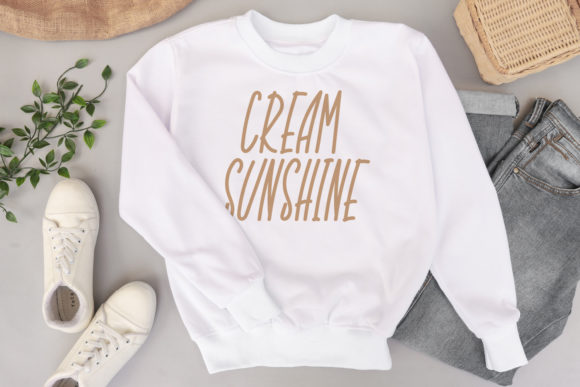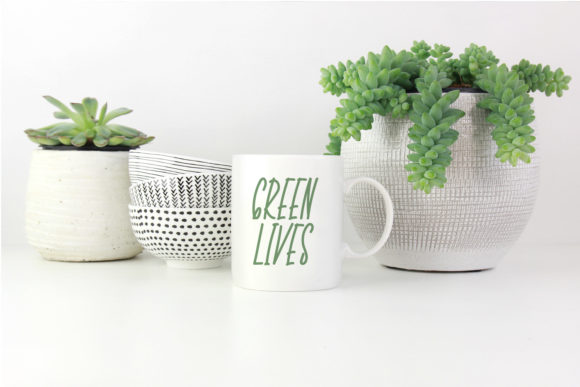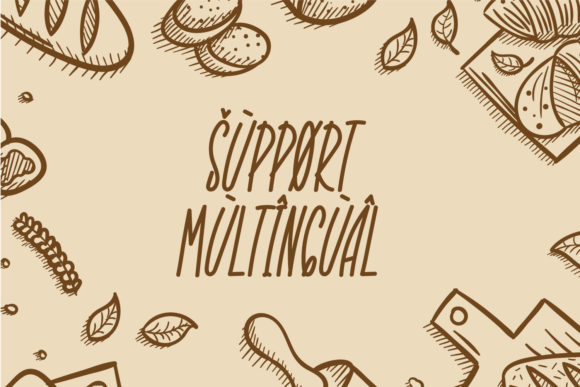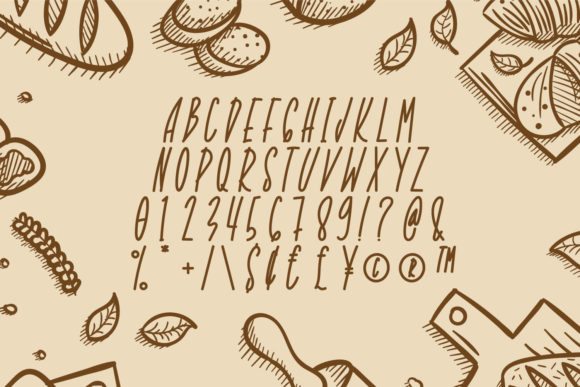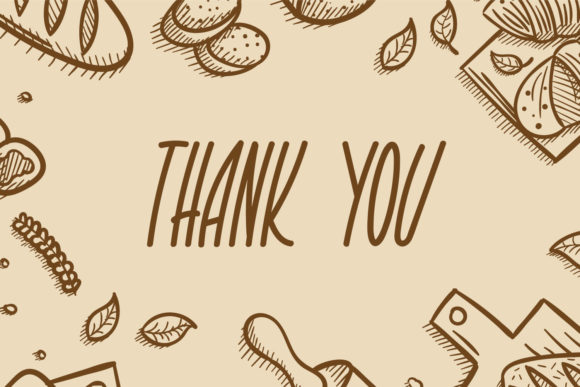
Cookies Day Font: The Perfect Addition to Your Design Arsenal
Are you a designer or crafter looking for a font that can add a personal touch to your creations? Look no further than Cookies Day Font! This adorable, handwritten font is perfect for chalkboard quotes, teaching materials, and any other project that requires a touch of whimsy and authenticity.
What is Cookies Day Font?
Cookies Day Font is a cute and simple lettered handwritten font that is designed to mimic the look of chalkboard writing. Its authentic look and feel make it an ideal choice for designers and crafters who want to add a personal and realistic touch to their designs. Whether you’re creating custom signs, posters, or teaching materials, Cookies Day Font is the perfect choice.
Features of Cookies Day Font
- Cute and Simple Design: Cookies Day Font features a cute and simple design that is perfect for a variety of design projects.
- Handwritten Style: The font has a handwritten style that gives it an authentic and personal look.
- Chalkboard Effect: The font is designed to mimic the look of chalkboard writing, making it perfect for chalkboard quotes and teaching materials.
- Easily Readable: The font is easily readable, making it perfect for use in teaching materials and other designs where clarity is important.
Uses of Cookies Day Font
Cookies Day Font is a versatile font that can be used in a variety of design projects. Here are some of the most popular uses of the font:
- Chalkboard Quotes: The font is perfect for creating chalkboard quotes that are both inspirational and visually appealing.
- Teaching Materials: The font can be used to create teaching materials such as worksheets, posters, and presentations.
- Custom Signs: The font can be used to create custom signs for events, businesses, and homes.
- Posters and Flyers: The font can be used to create posters and flyers for events, promotions, and other marketing campaigns.
Benefits of Using Cookies Day Font
There are several benefits to using Cookies Day Font in your design projects. Here are some of the most significant advantages:
- Unique and Eye-Catching: The font is unique and eye-catching, making it perfect for designs that need to stand out.
- Authentic Look: The font has an authentic look that gives designs a personal and realistic feel.
- Easily Readable: The font is easily readable, making it perfect for use in teaching materials and other designs where clarity is important.
- Versatile: The font is versatile and can be used in a variety of design projects.
Cookies Day Font is a cute and simple lettered handwritten font that is perfect for designers and crafters who want to add a personal touch to their creations. Its authentic look and feel make it an ideal choice for chalkboard quotes, teaching materials, and any other project that requires a touch of whimsy and authenticity. With its unique and eye-catching design, easily readable style, and versatility, Cookies Day Font is a must-have font for any designer or crafter.